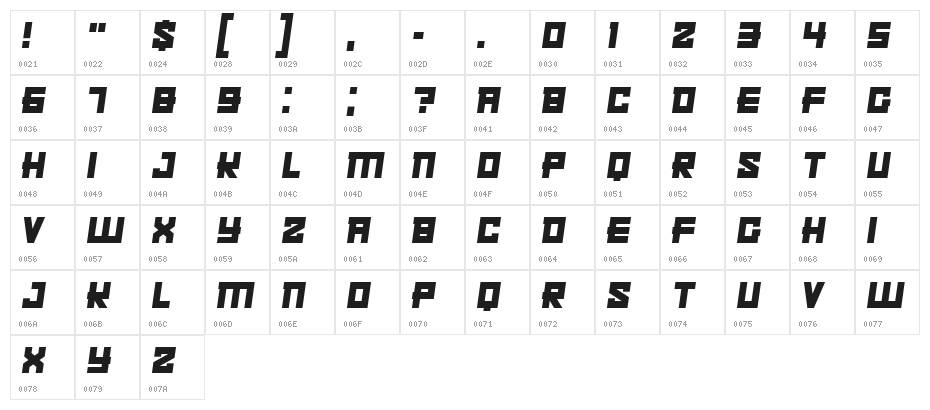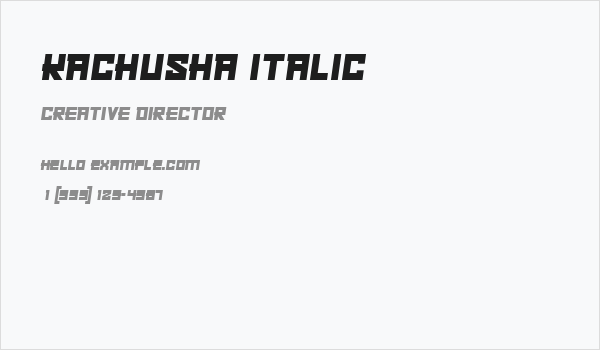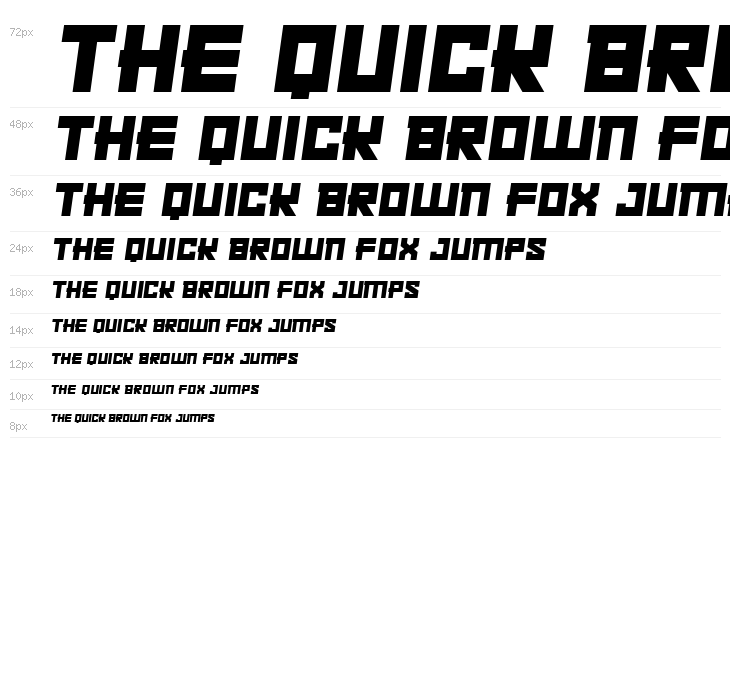
Kachusha Italic Font
Kachusha Italic Description
This font features a bold and dynamic style with a strong geometric influence. The characters are sharply angled, giving them a futuristic and edgy appearance. The uppercase and lowercase letters maintain a consistent height, creating a uniform look across the text. The numbers and special characters follow the same design principles, ensuring cohesion throughout. The font's boldness and angularity make it stand out, ideal for projects that require a striking and modern aesthetic.
Proposed ProjectsIdeal for branding, sports team logos, video game titles, and poster designs that require a modern and impactful look.